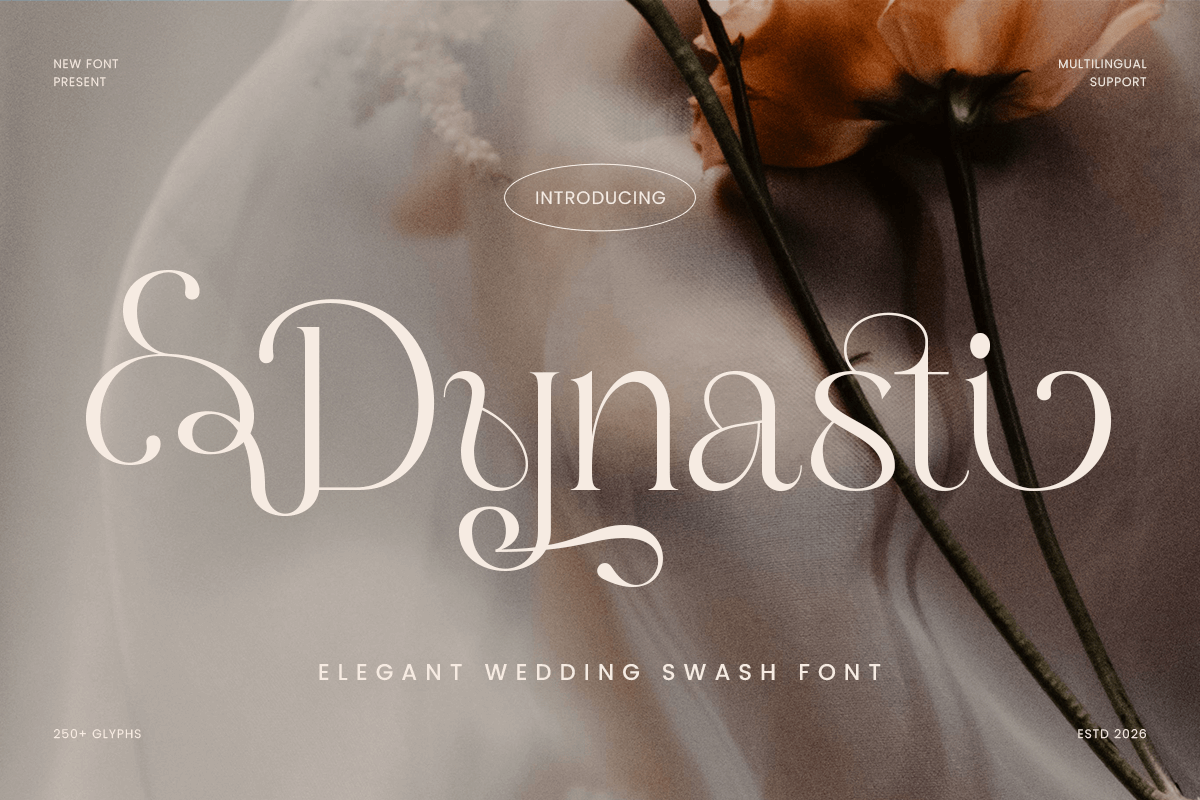
Dynasti
-Elegant Wedding Swash Font
Dynasti - Elegant Wedding Swash Font
Dynasti is an elegant wedding swash font crafted to express romance, grace, and timeless luxury. Featuring flowing strokes and decorative swashes, this font delivers a beautiful handwritten elegance that feels intimate, refined, and perfectly suited for special moments.
Designed for wedding-focused typography, Dynasti shines across invitations, save-the-dates, monograms, logos, signage, menu cards, packaging, labels, and romantic social media announcements. The swash details add a dramatic yet tasteful flourish, making every word feel custom, expressive, and emotionally rich across both print and digital formats.
Whether you’re creating bridal branding, luxury wedding stationery, event décor, or romantic promotional visuals, Dynasti provides a graceful script foundation that elevates your designs with softness, charm, and unforgettable elegance.
Inspiration Behind Dynasti
DYNASTI is inspired by classic calligraphy and luxurious wedding scripts—where flowing swashes and balanced rhythm convey love, celebration, and sophistication. The design focuses on elegant movement and decorative harmony to support bridal visuals and romantic branding with a premium, timeless feel.
Dynasti Font Features:
• Elegant script letterforms with decorative wedding swashes
• Perfect for invitations, monograms, logos, and romantic headlines
• Graceful flow for a custom handwritten appearance
• Wedding invitations, save-the-dates, RSVP cards, and stationery suites
• Bridal branding, luxury event planners, and romantic identity systems
• Logos, wordmarks, monograms, and signature typography
• Signage, menu cards, gift tags, packaging, and elegant labels
• Social media announcements, websites, and wedding marketing assets